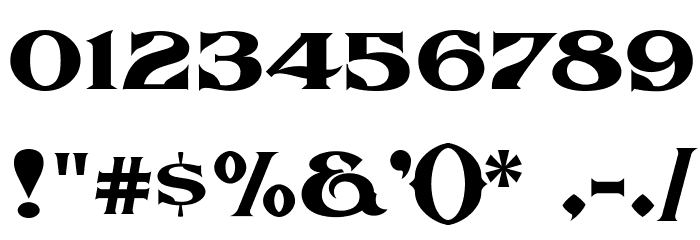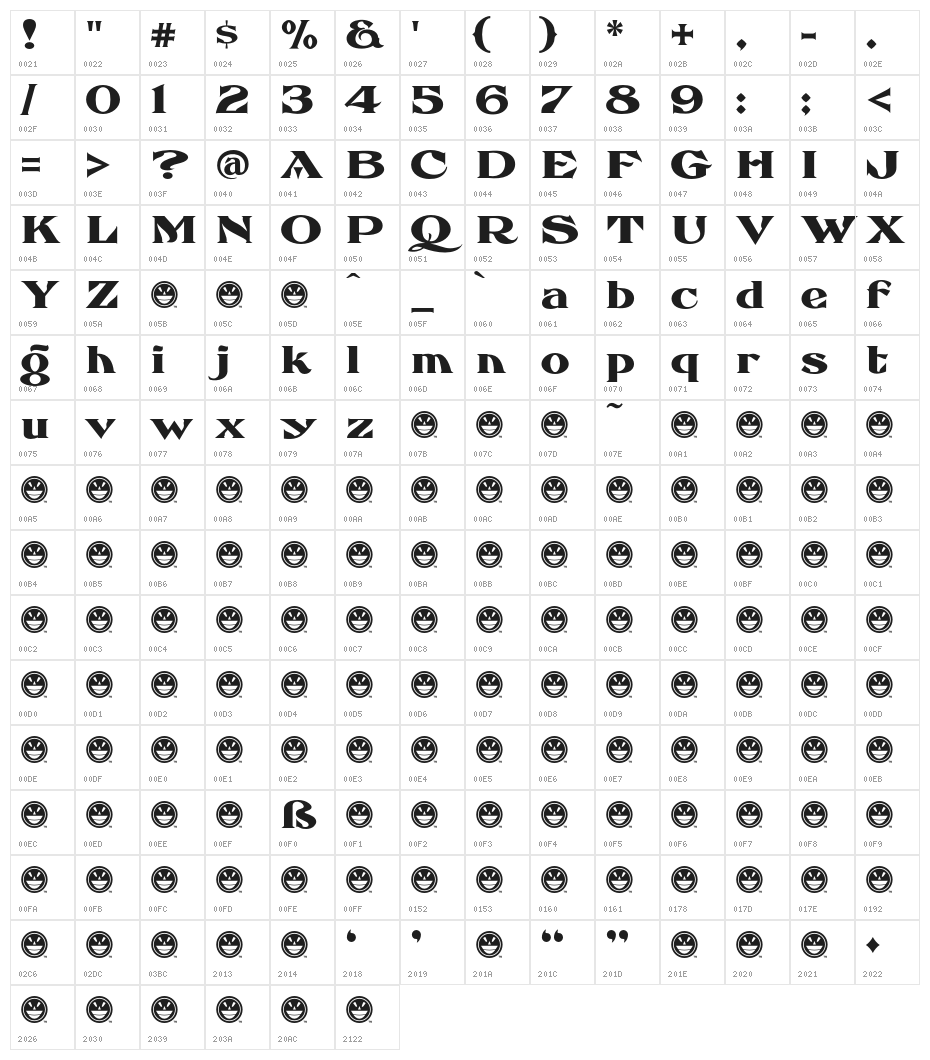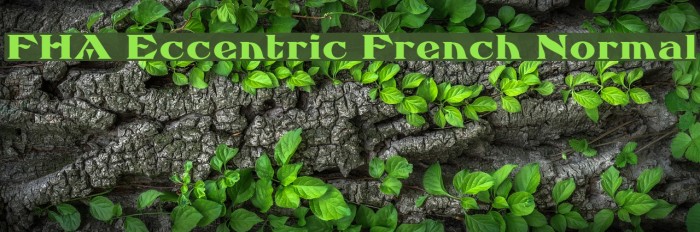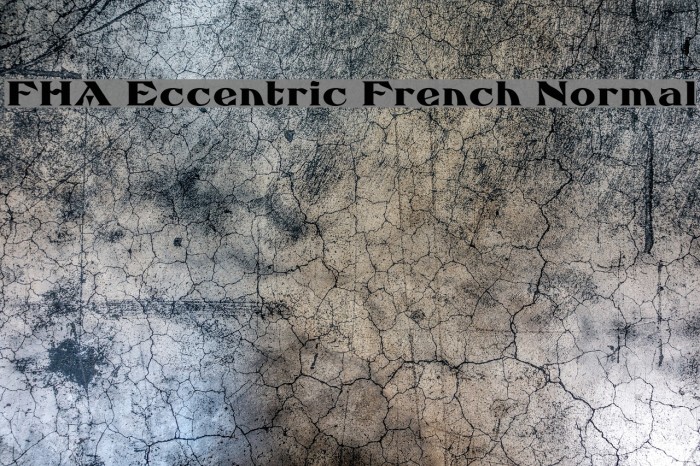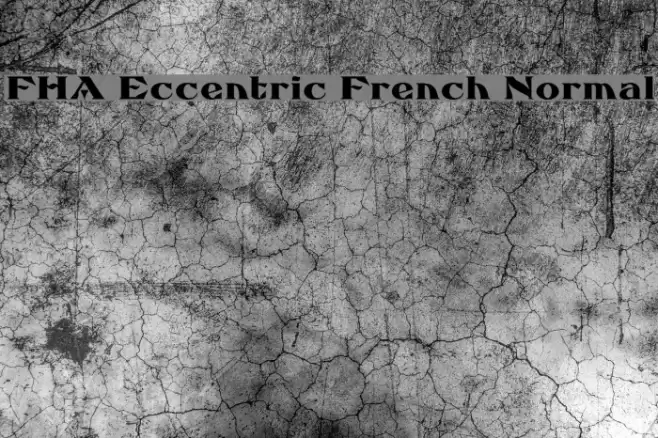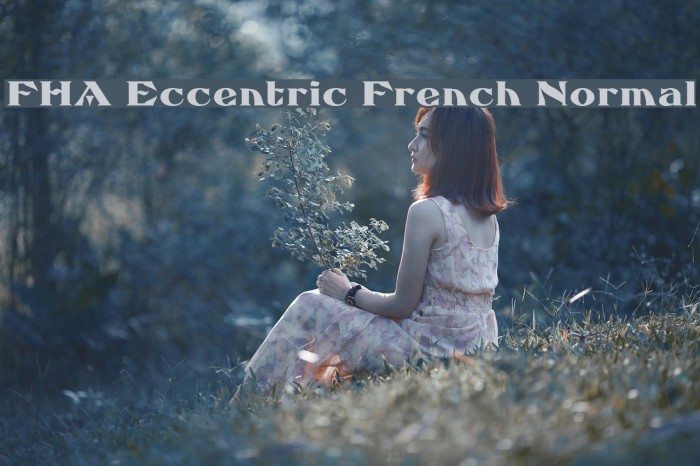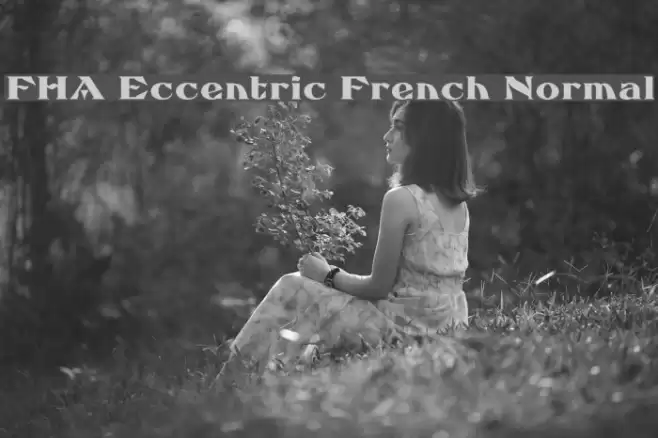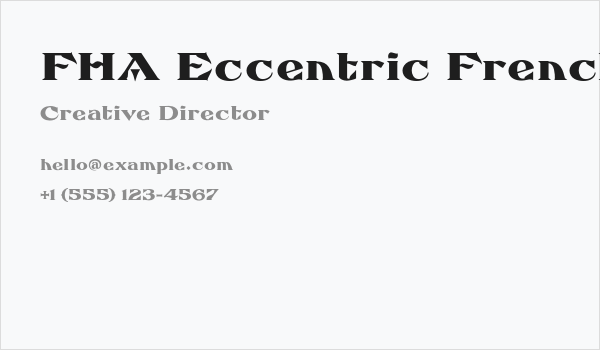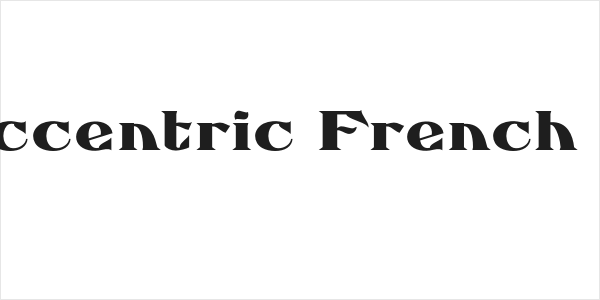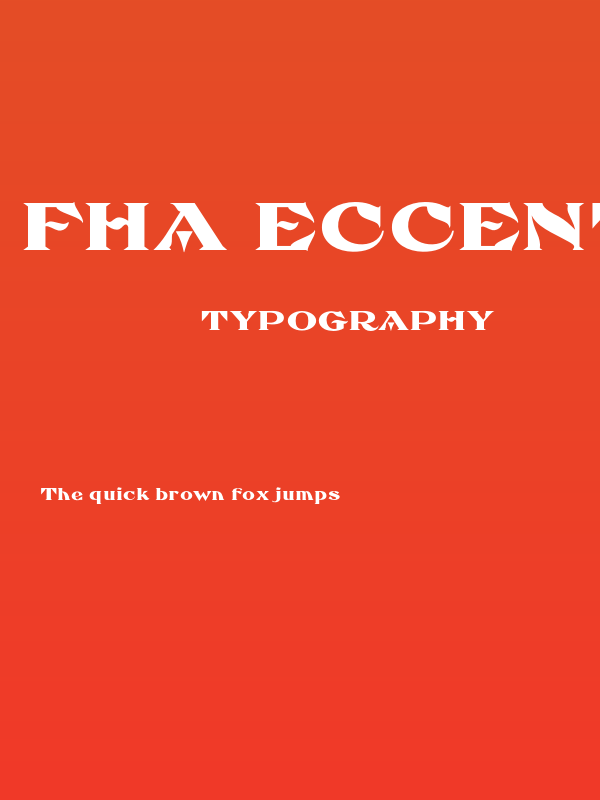
FHA Eccentric French Normal Font
FHA Eccentric French Normal Description
This font features a bold and dramatic style with high contrast between thick and thin strokes, giving it a distinctive and eye-catching appearance. The uppercase letters have a strong presence with sharp serifs and unique, angular shapes that add a touch of elegance and sophistication. The lowercase letters maintain a consistent style, with rounded forms and subtle curves that balance the overall design. The numerals are equally bold, ensuring readability and impact. Special characters are crafted with the same attention to detail, making them suitable for various design needs. This font's unique characteristics make it ideal for projects that require a touch of classic flair with a modern twist.